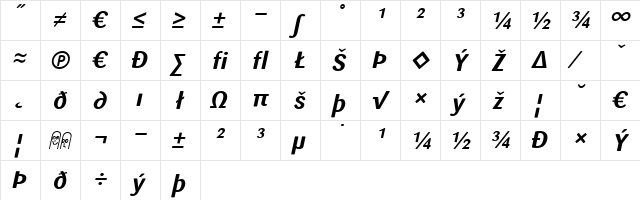
Sari Bold Italic Font Preview
Sari Bold Italic
Sari Bold Italic Font Details
| Foundry | Hans Reichel, . Published by FontShop International. FontFont Release |
Design Context for Sari Typeface
Sari is a composed and adaptable typeface that performs quietly and consistently across a wide range of design contexts. The dynamic lean of this cut emphasises speed and emphasis in any layout. The heavy weight commands attention and anchors typographic hierarchies.